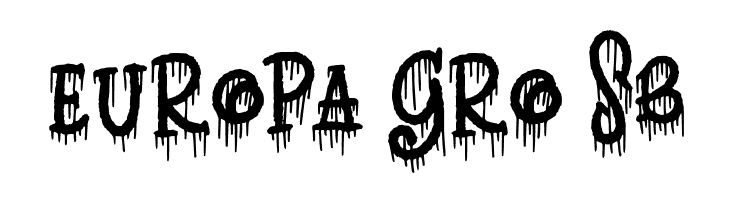
A bold, dripping font perfect for horror-themed designs.
A spooky, hand-drawn font with irregular, twisted lines.
A bold, spooky font with sharp serifs and a supernatural vibe.
A bold, dripping font perfect for horror themes.
A bold, dripping font with a horror-themed style.
A bold, dripping font perfect for horror-themed designs.
A bold, dripping font with a spooky, horror-themed design.
A dripping, spooky font perfect for Halloween themes.
A spooky, hand-drawn style font perfect for Halloween themes.
A bold, horror-themed font with dripping, blood-like effects.